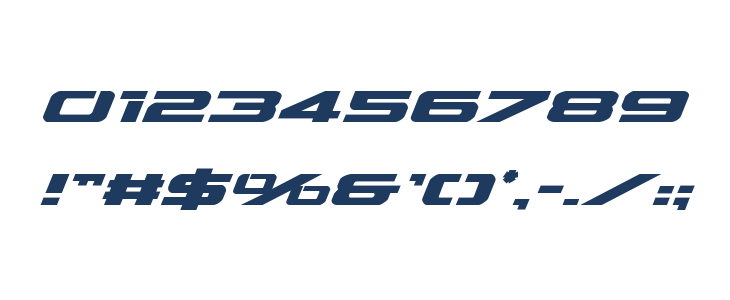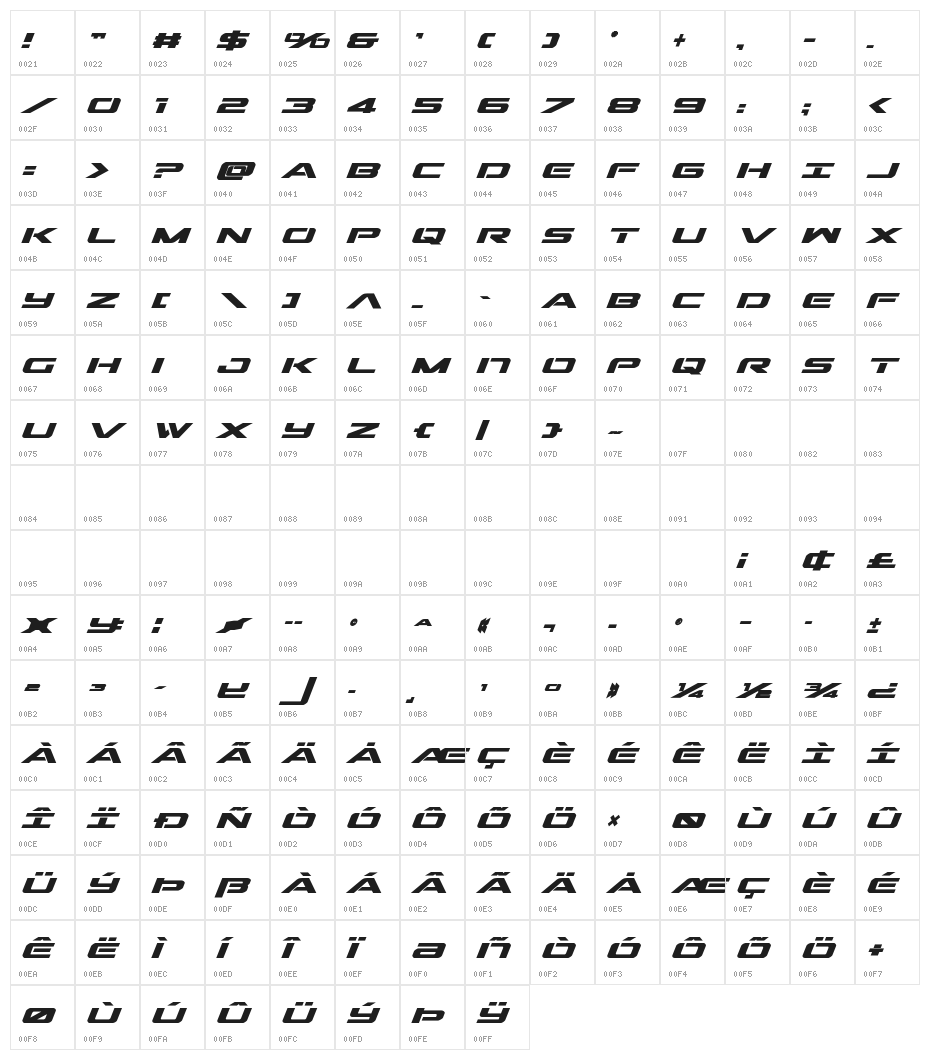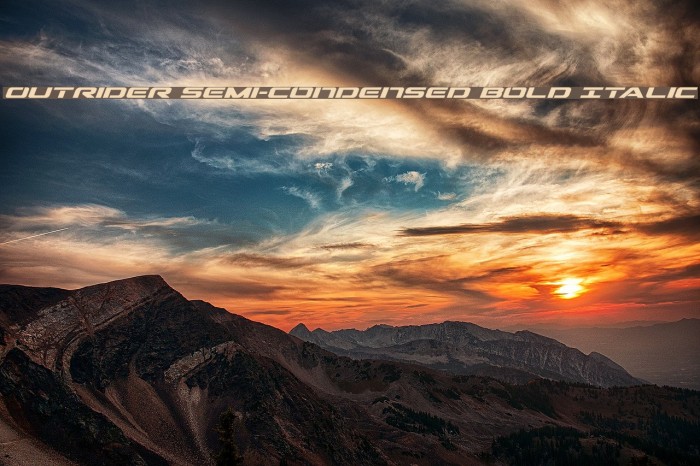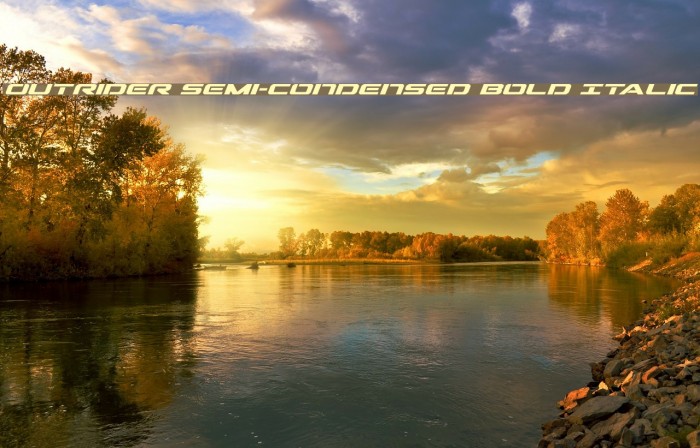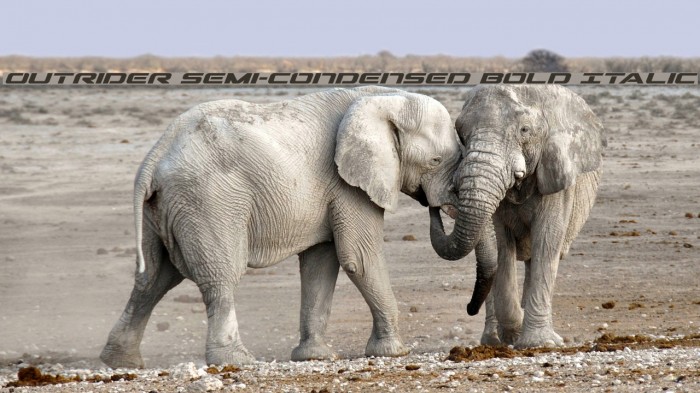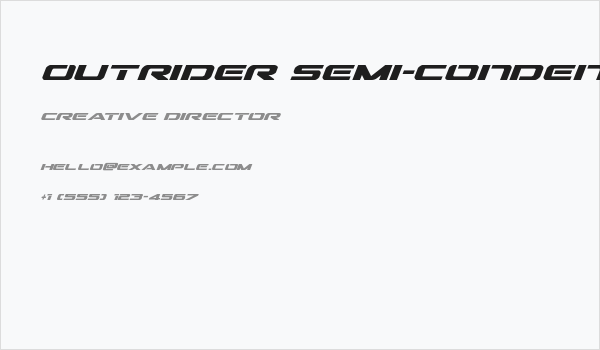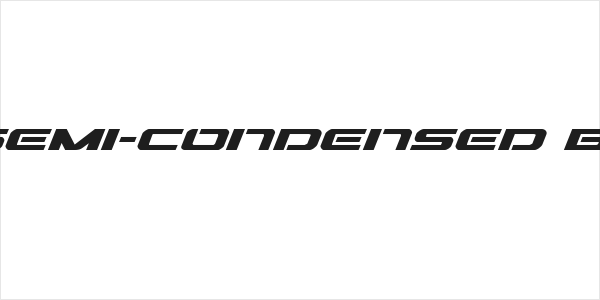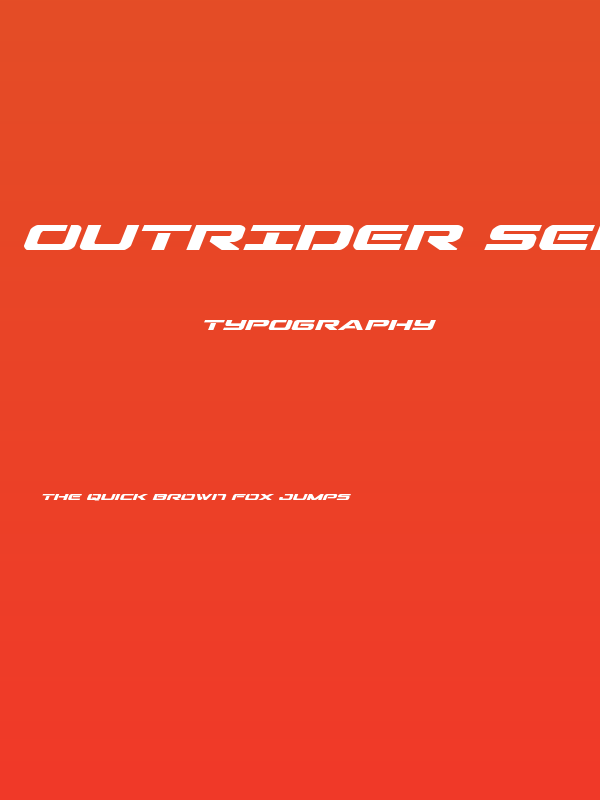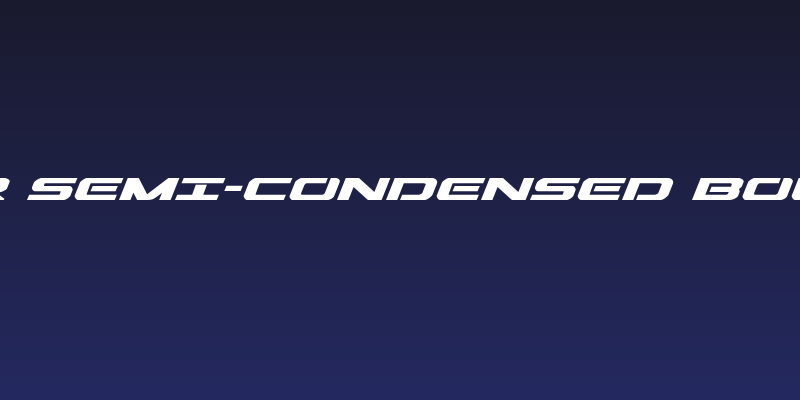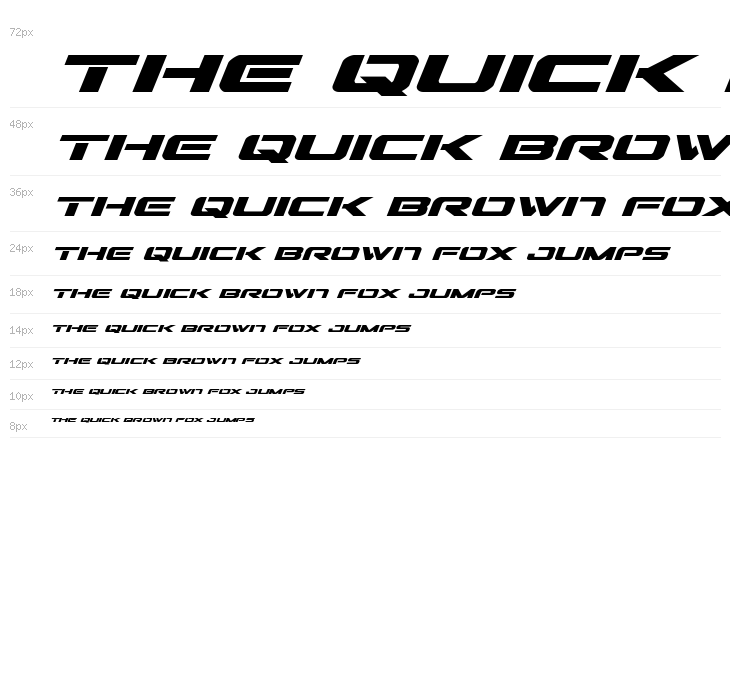
Outrider Semi-Condensed Bold Italic Font
Outrider Semi-Condensed Bold Italic Description
This font features a bold and italicized style with a semi-condensed width, giving it a dynamic and modern appearance. The characters are sharply angled, providing a sense of motion and energy. The uppercase and lowercase letters maintain a consistent design, with clean lines and a futuristic aesthetic. The numbers and special characters are equally stylized, making them suitable for a variety of creative applications. The overall look is sleek and contemporary, ideal for projects that require a strong visual impact.
| Proposed Projects | Ideal for branding, sports team logos, video game titles, and futuristic design themes. |